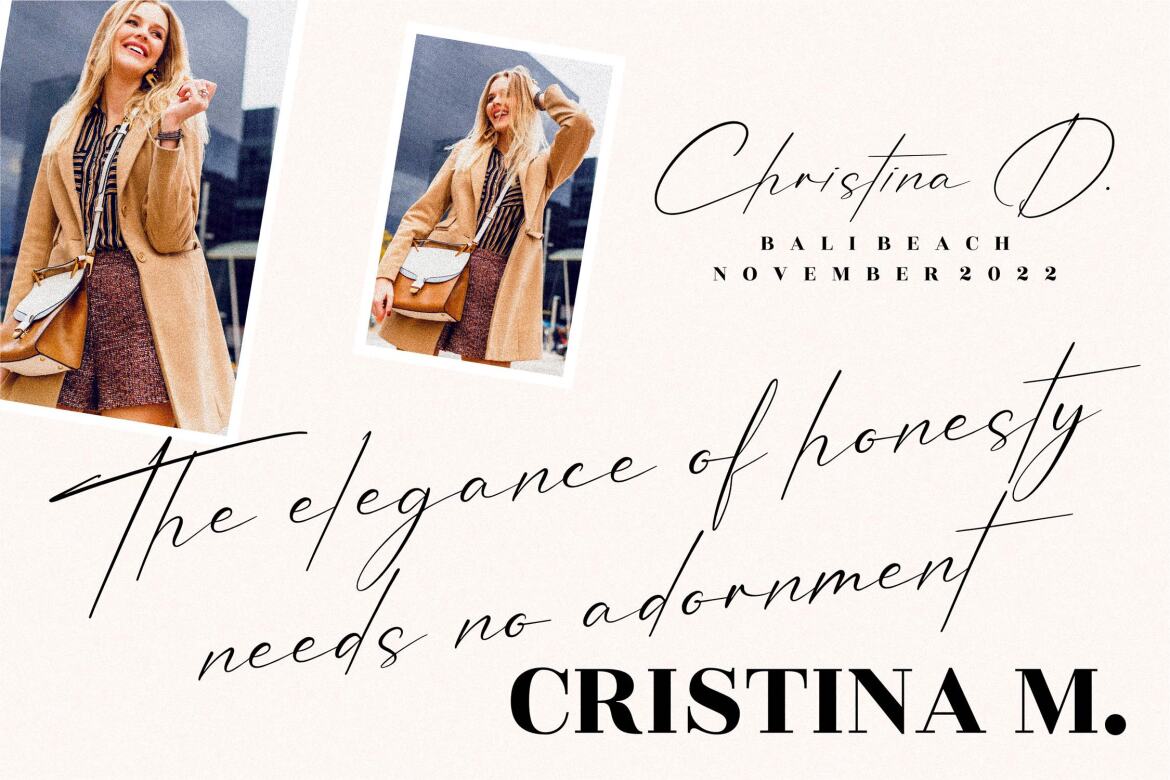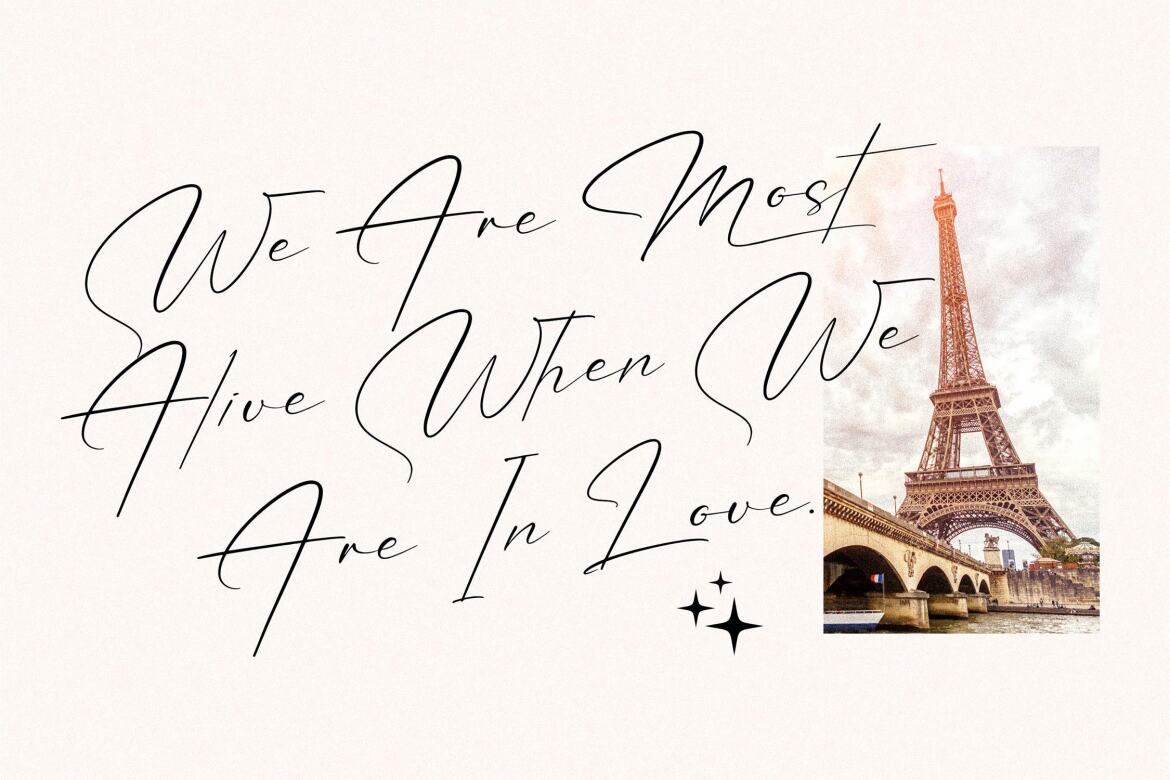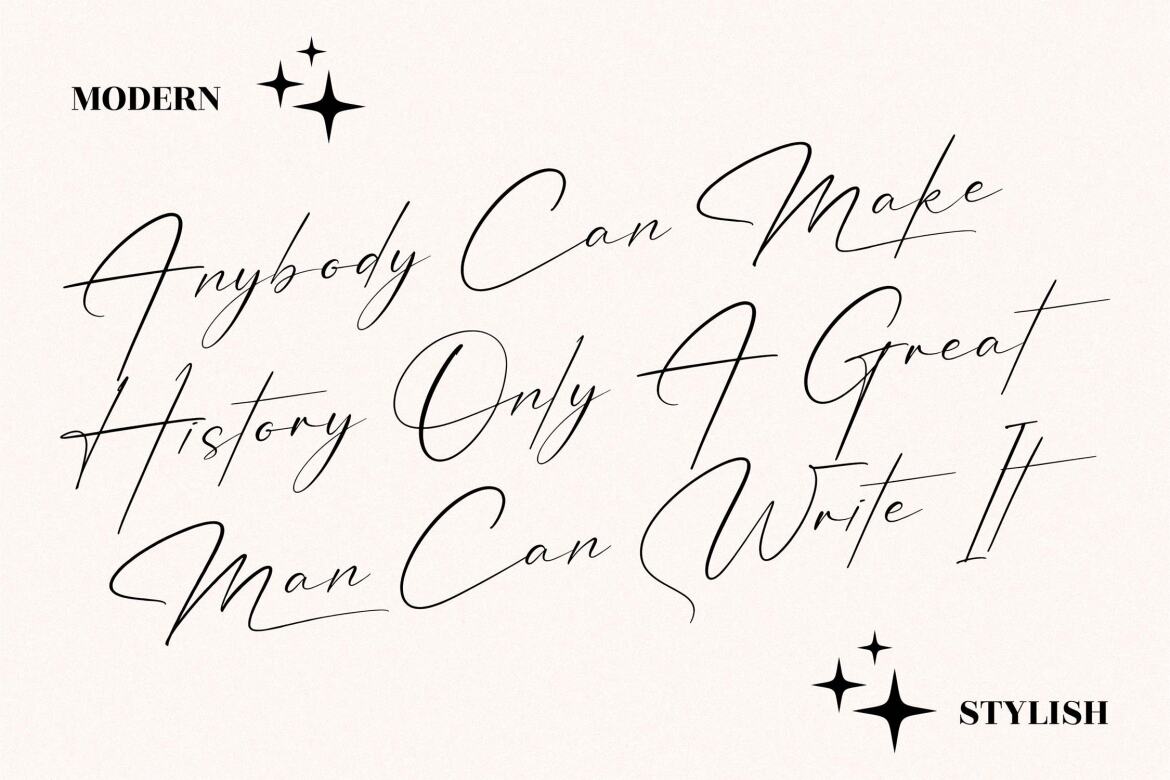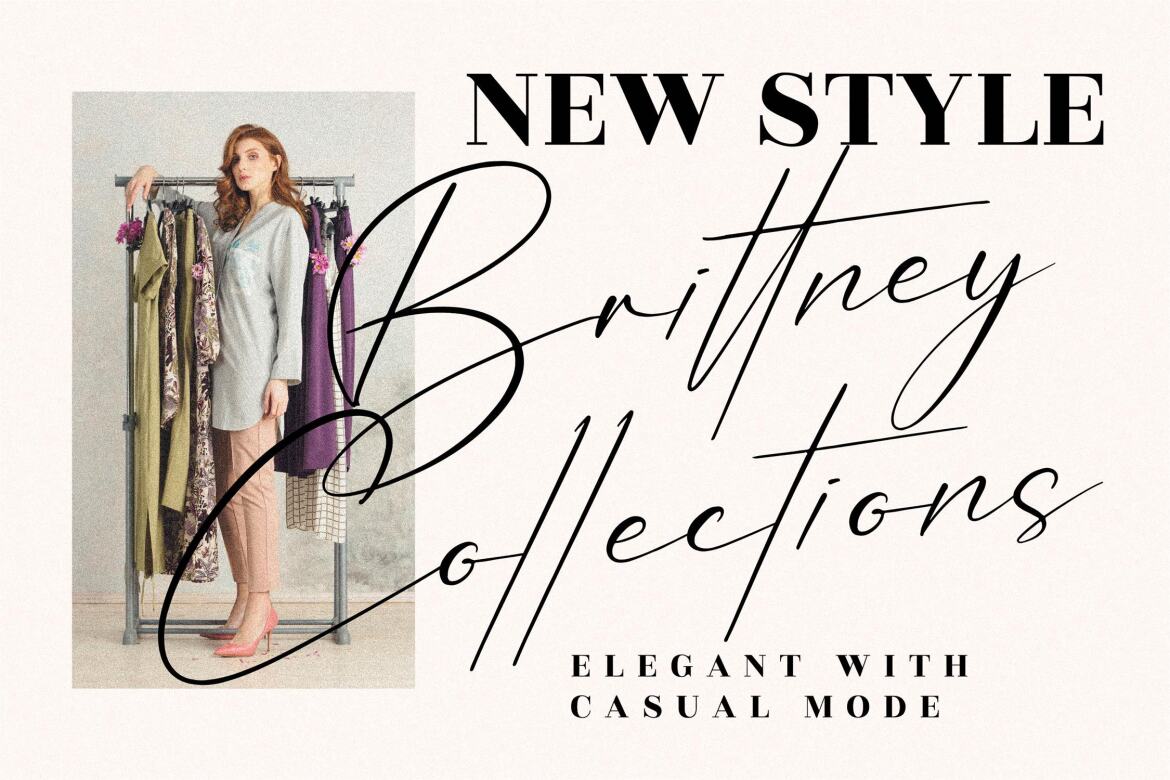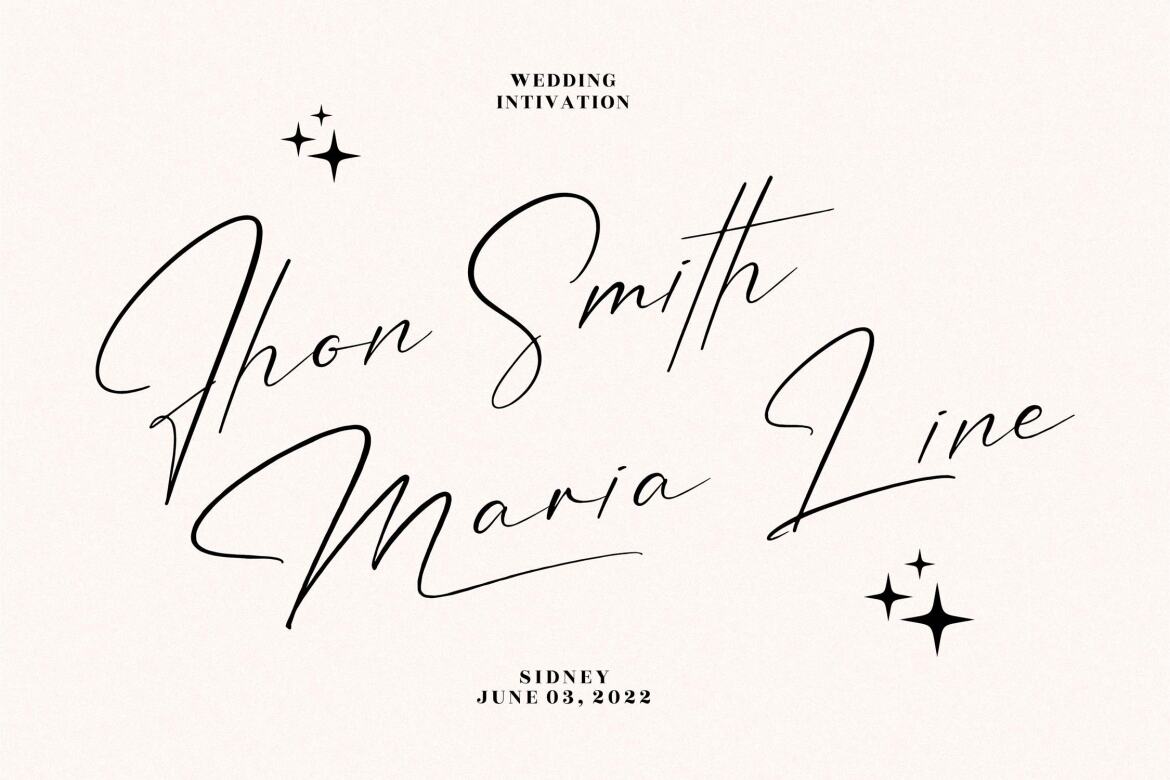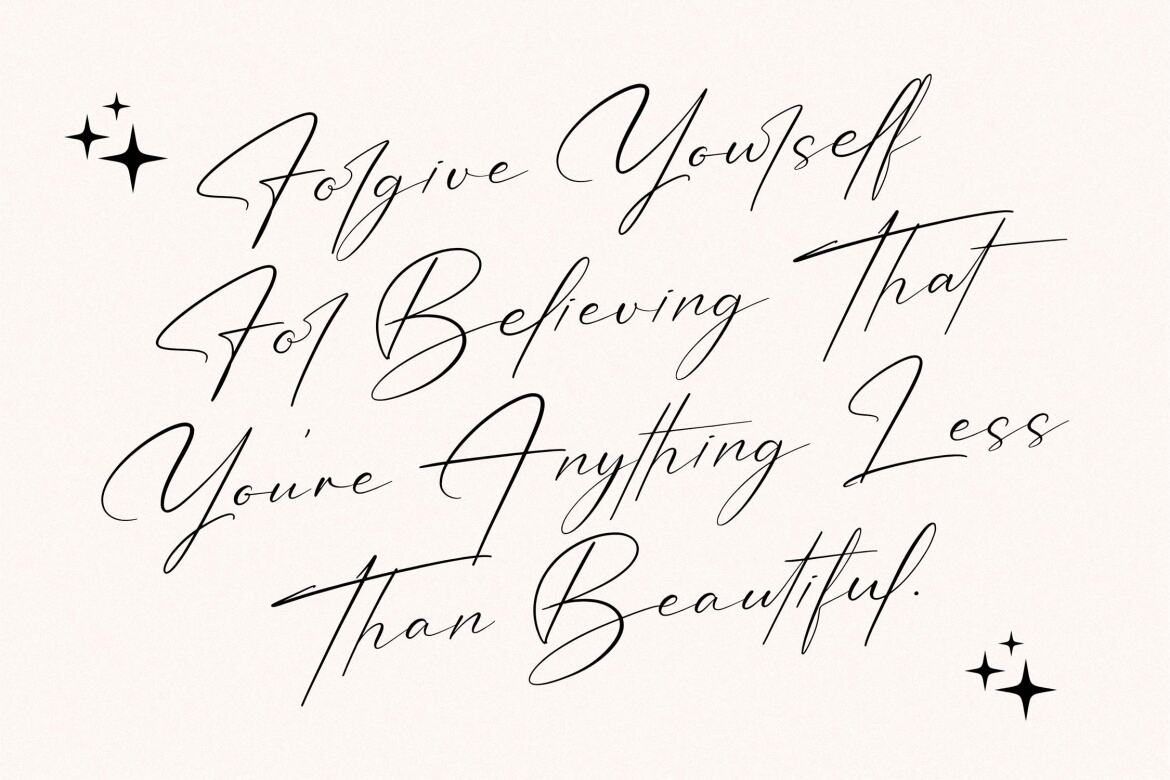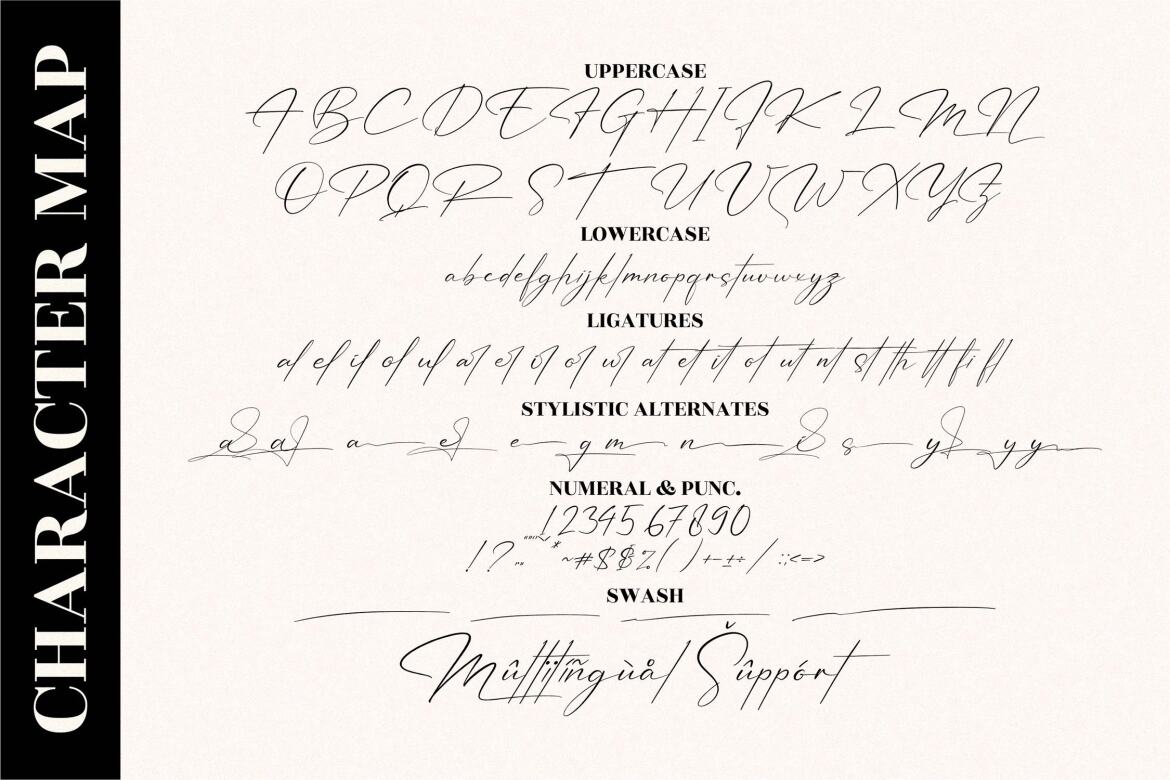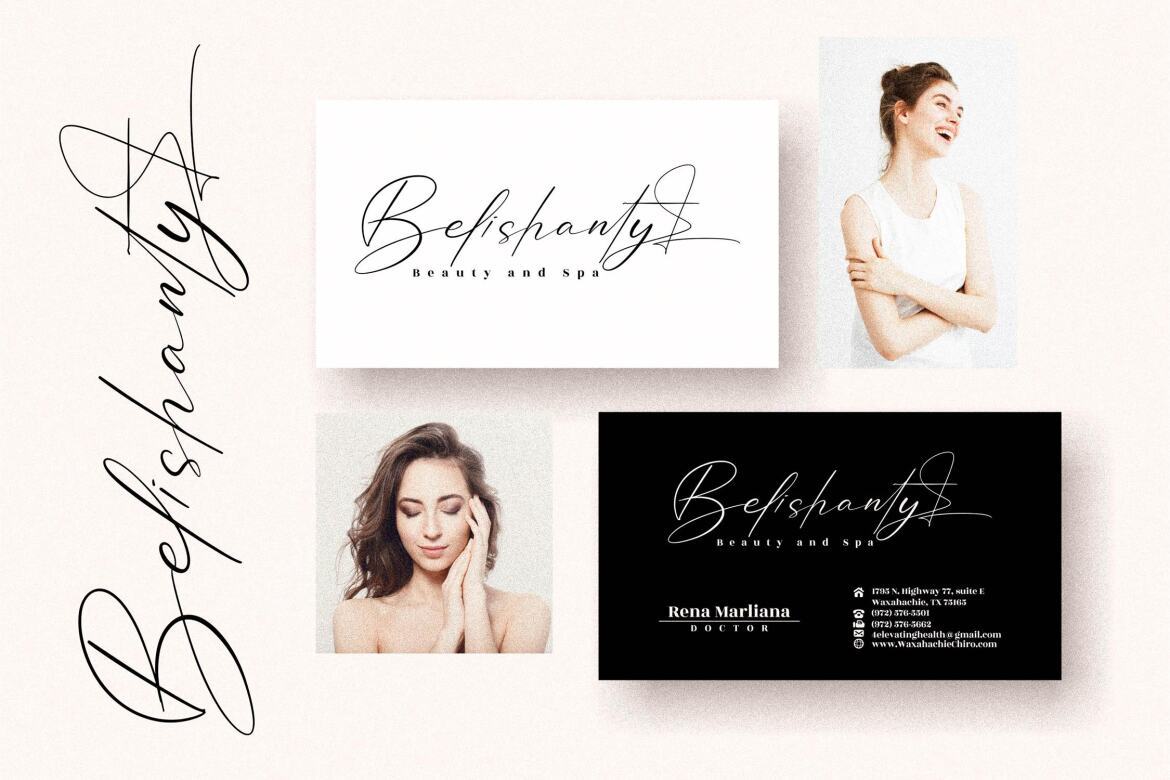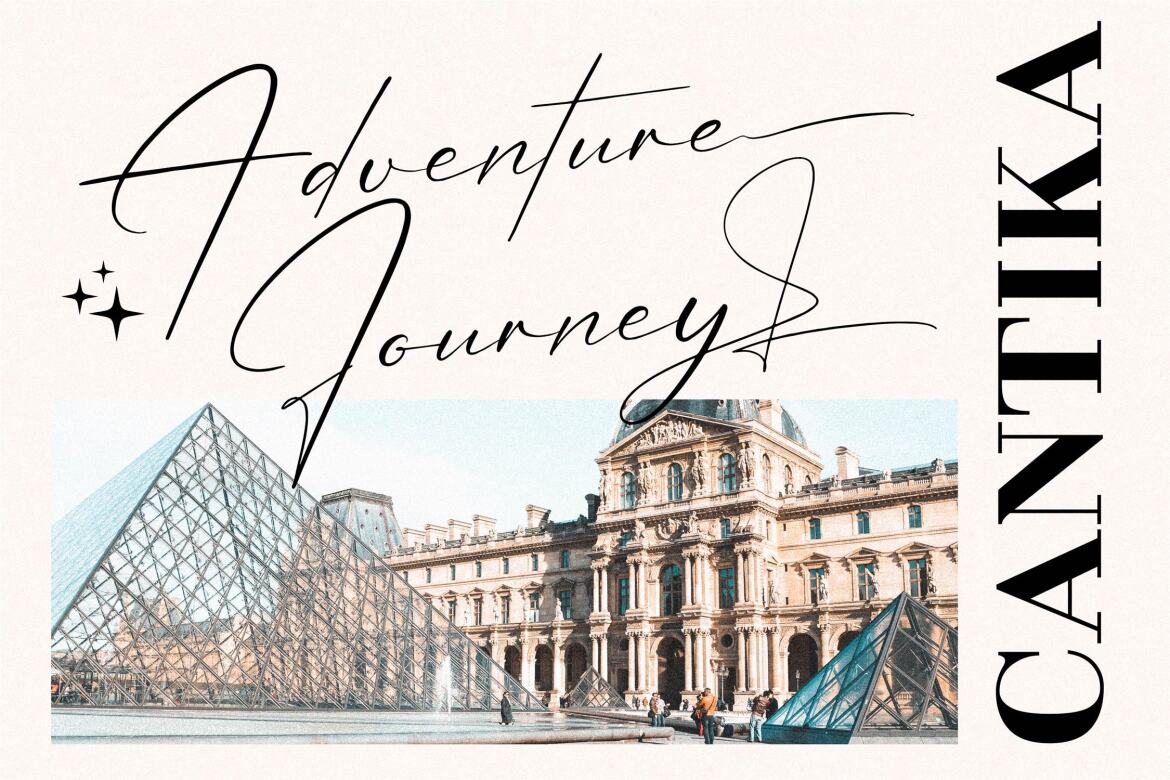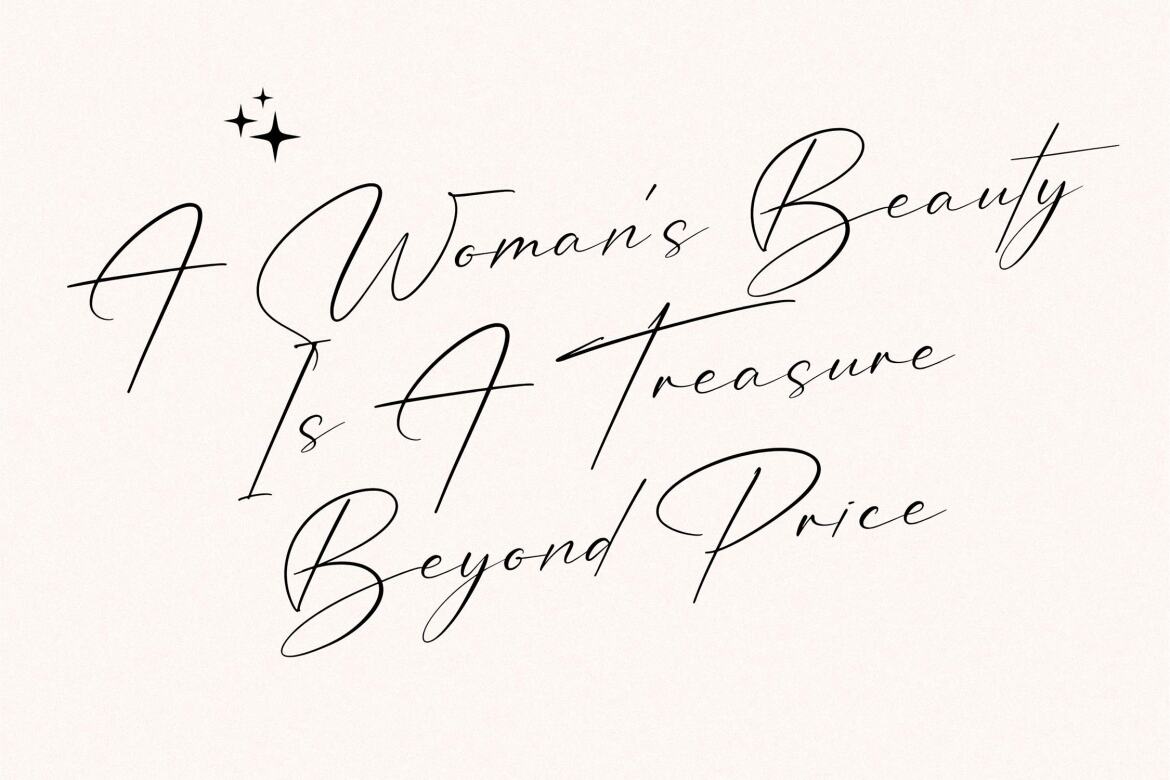
Patricia Signature - FREE Script Font
Patricia Signature - Handwritten Font, from Perspectype Studio, is a premium signature font, suitable for any projects such as: logos, branding projects, homeware designs, product packaging, mugs, quotes, posters, shopping bags, t-shirts, book covers, name card, invitation cards, greeting cards, label, photography, watermark, special events, and all your other luxury projects that need a premium signature taste.